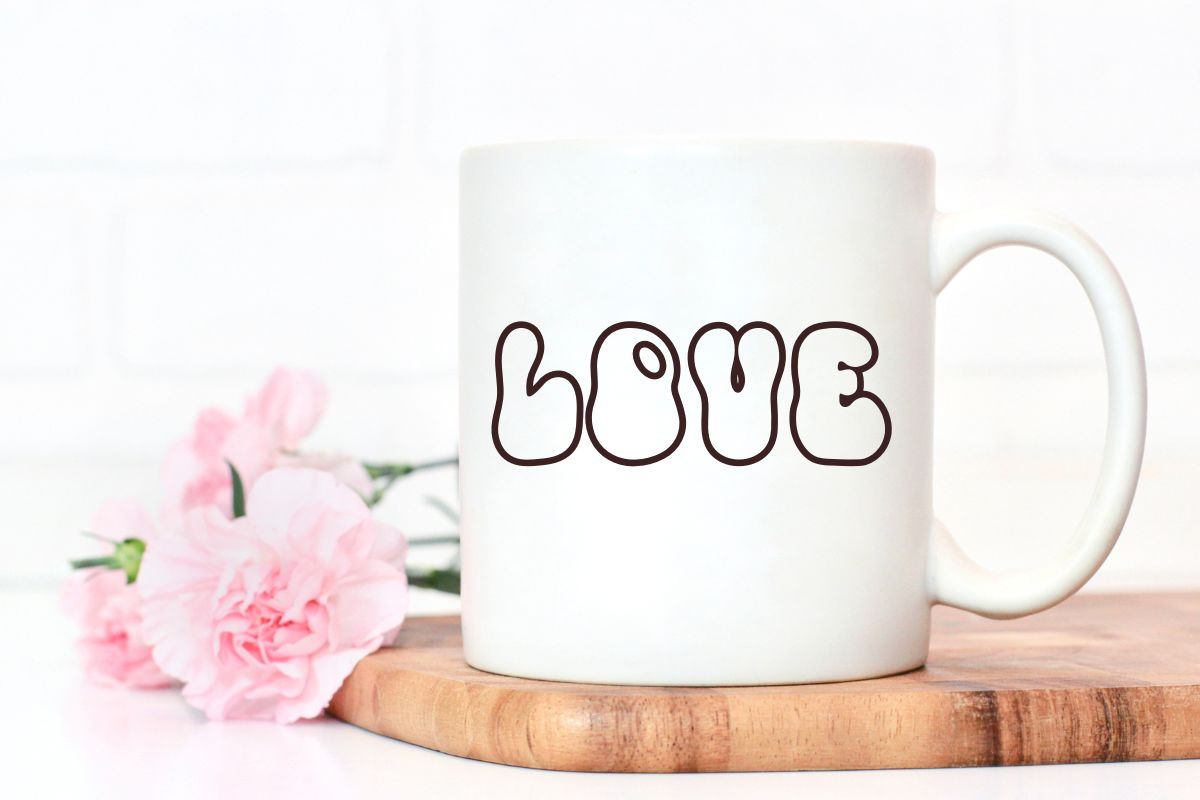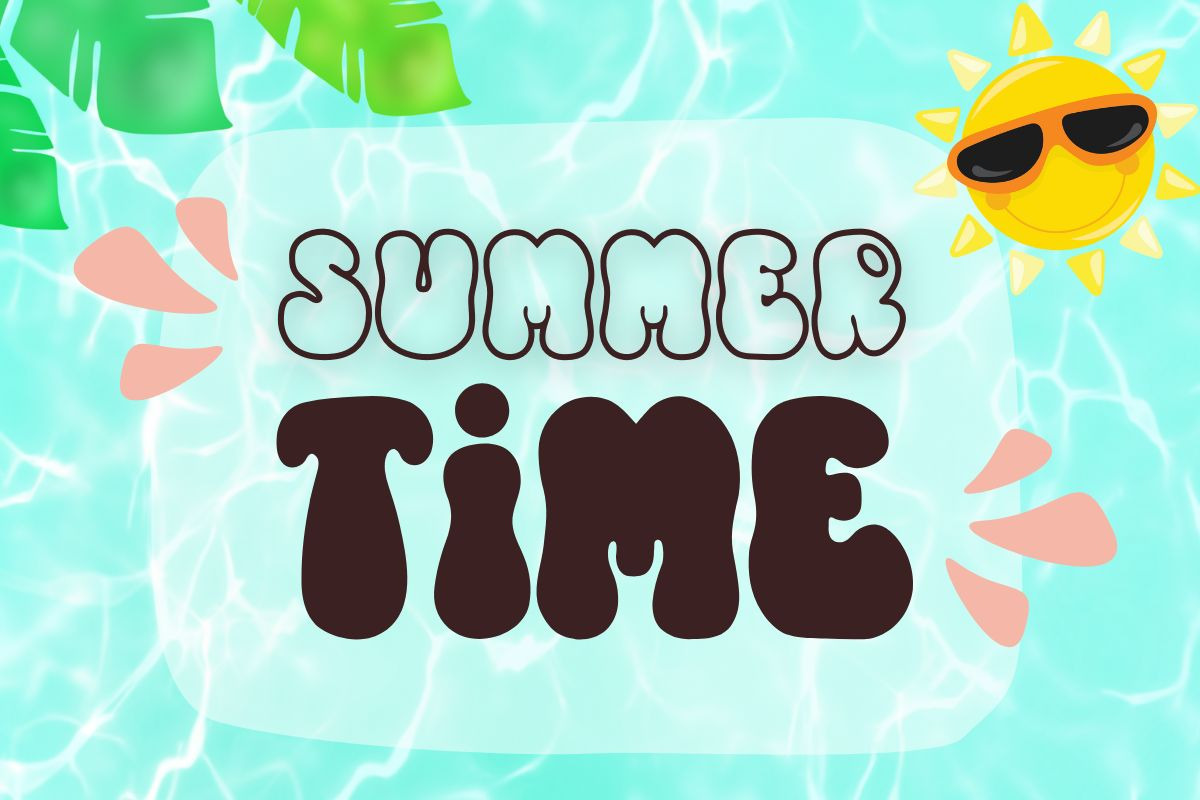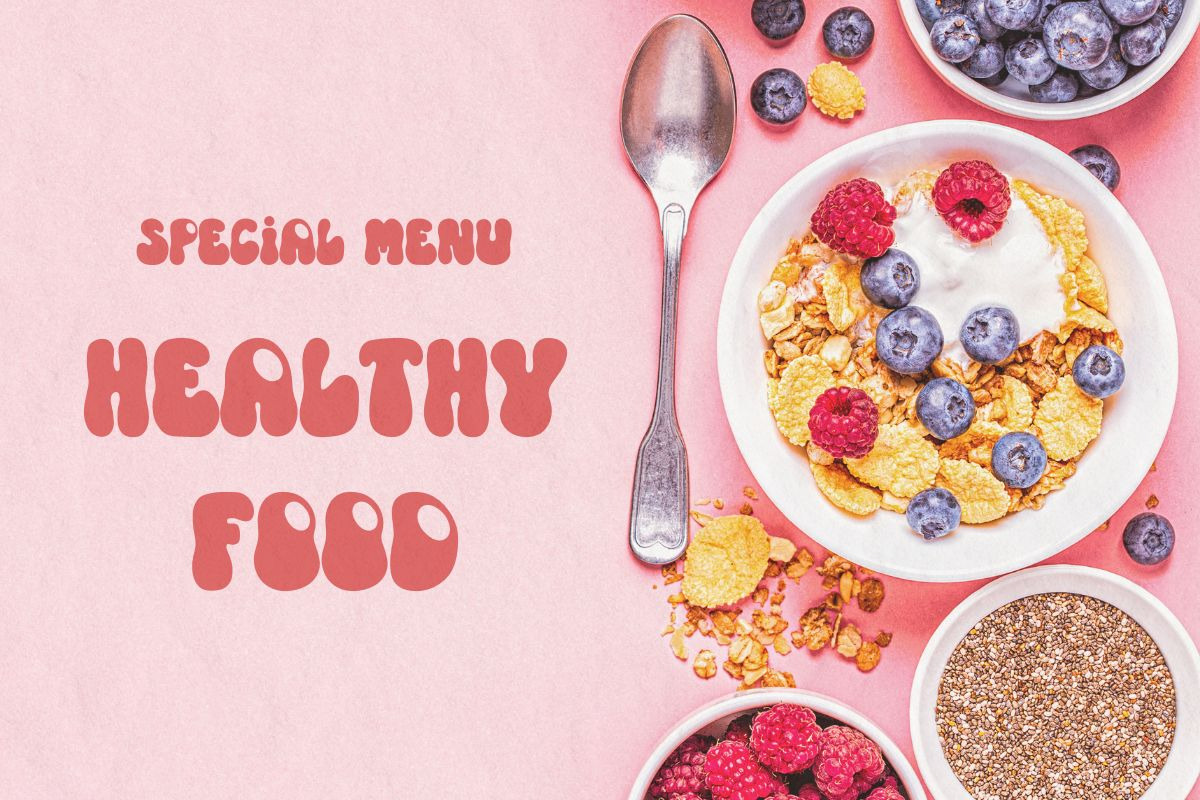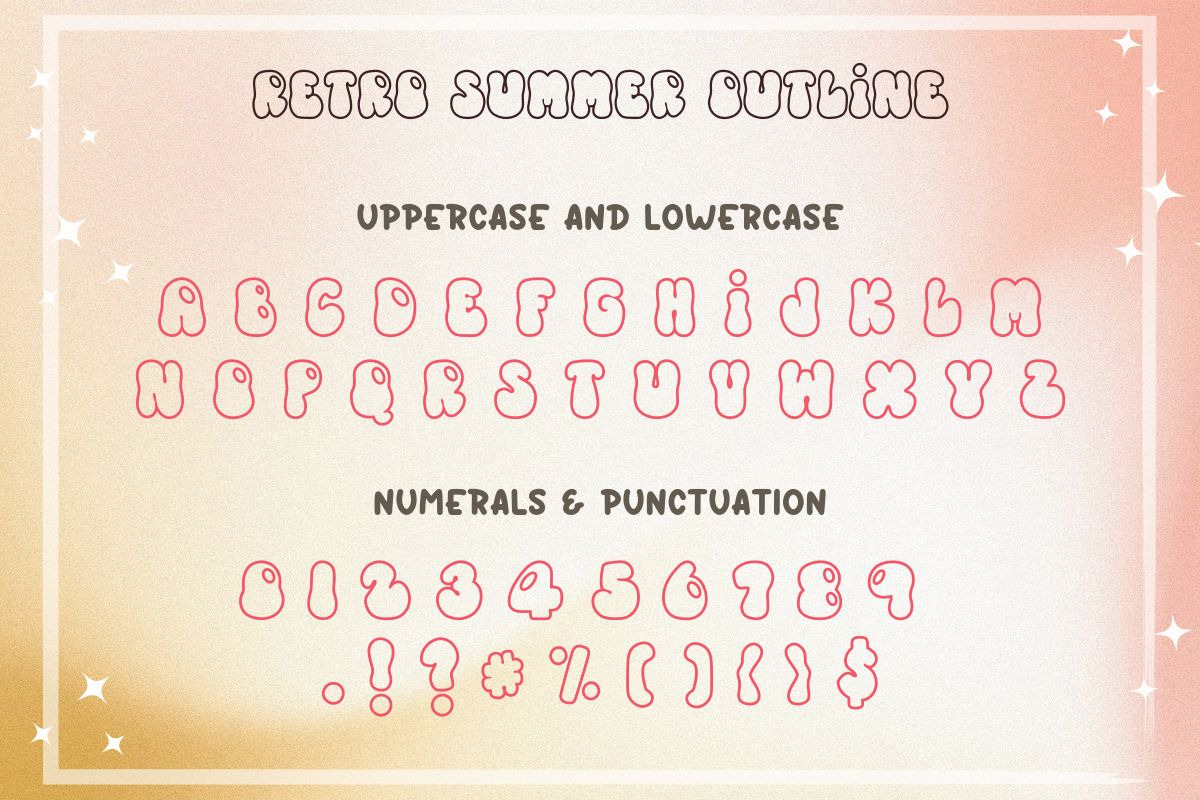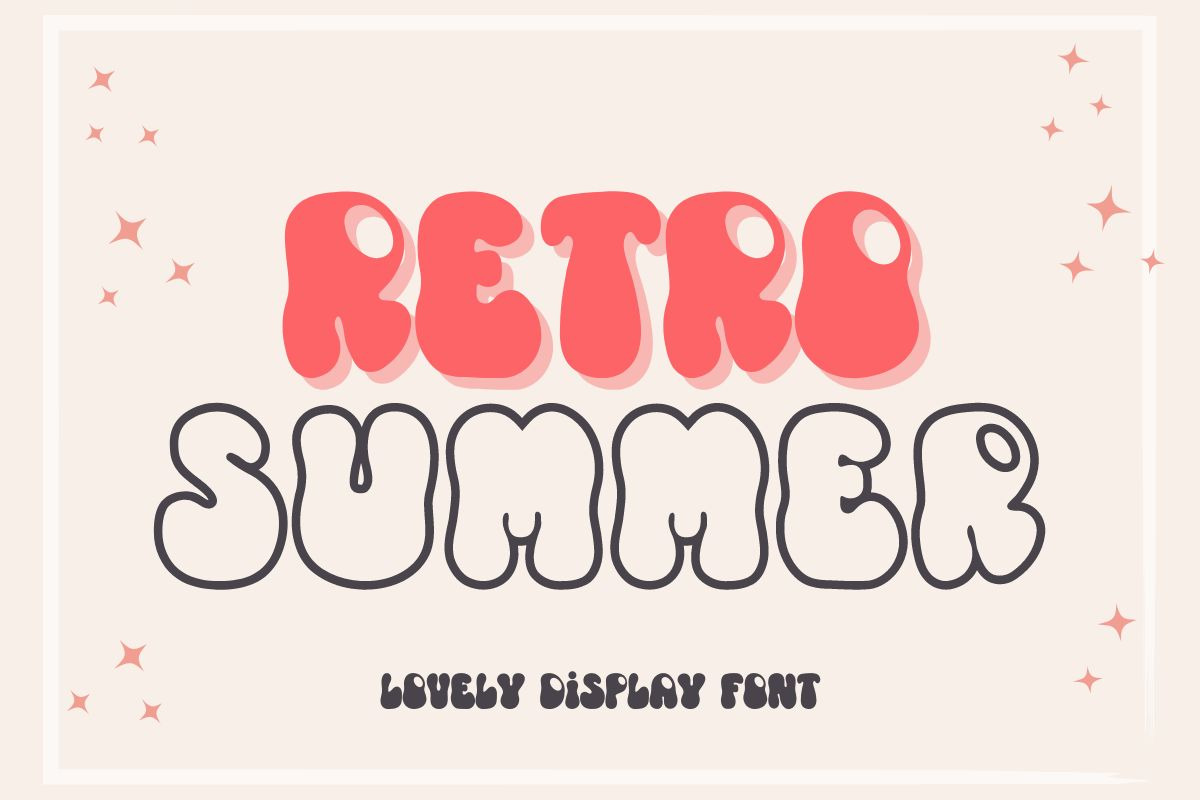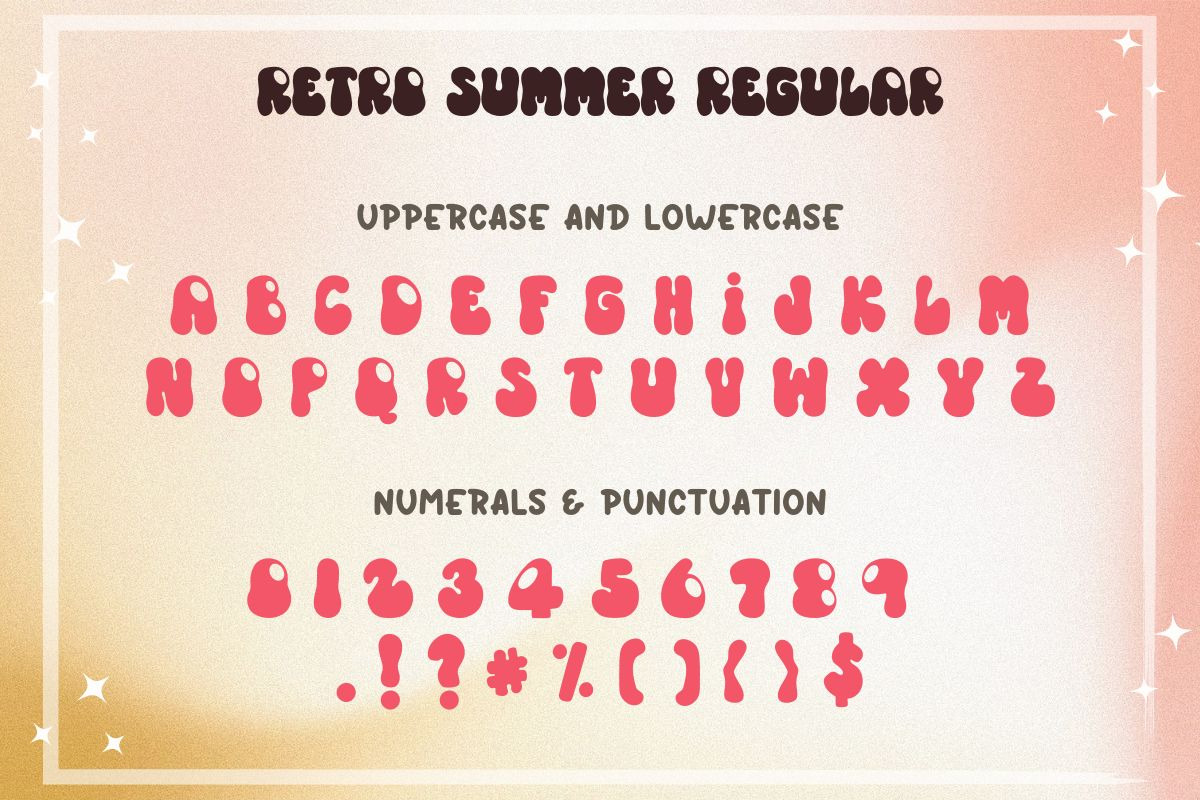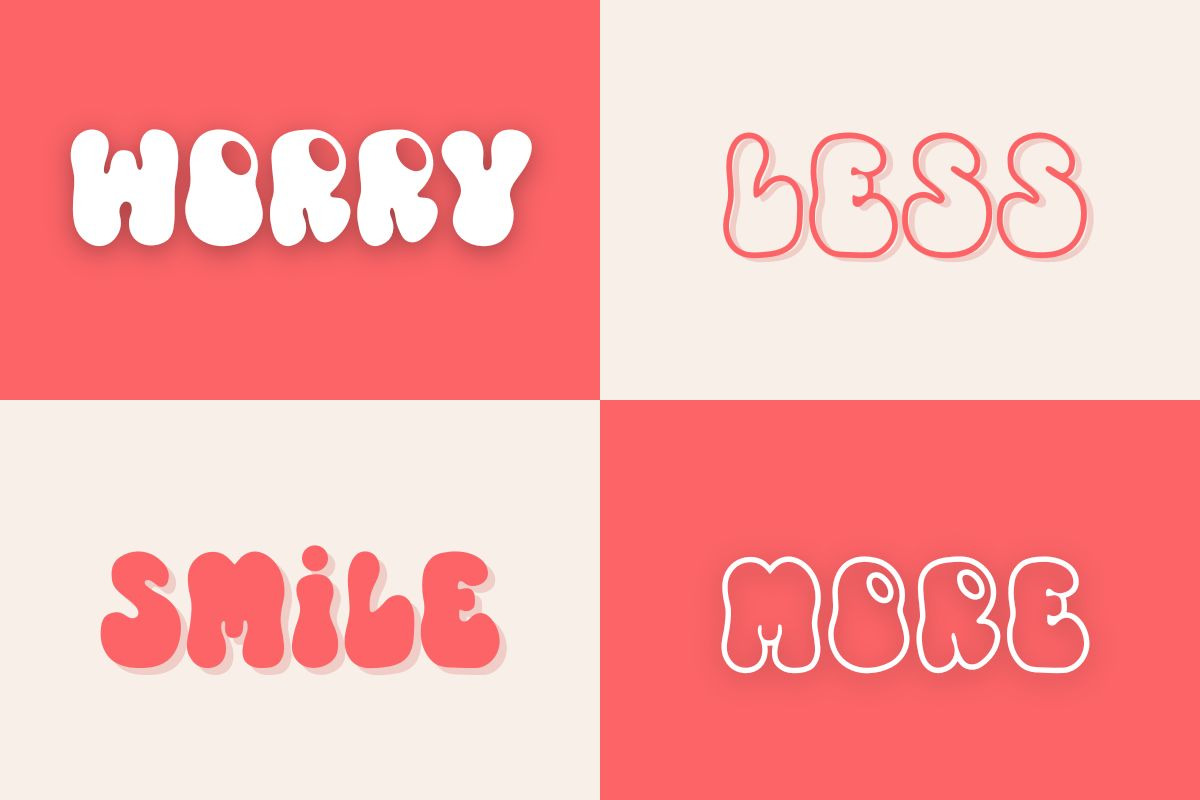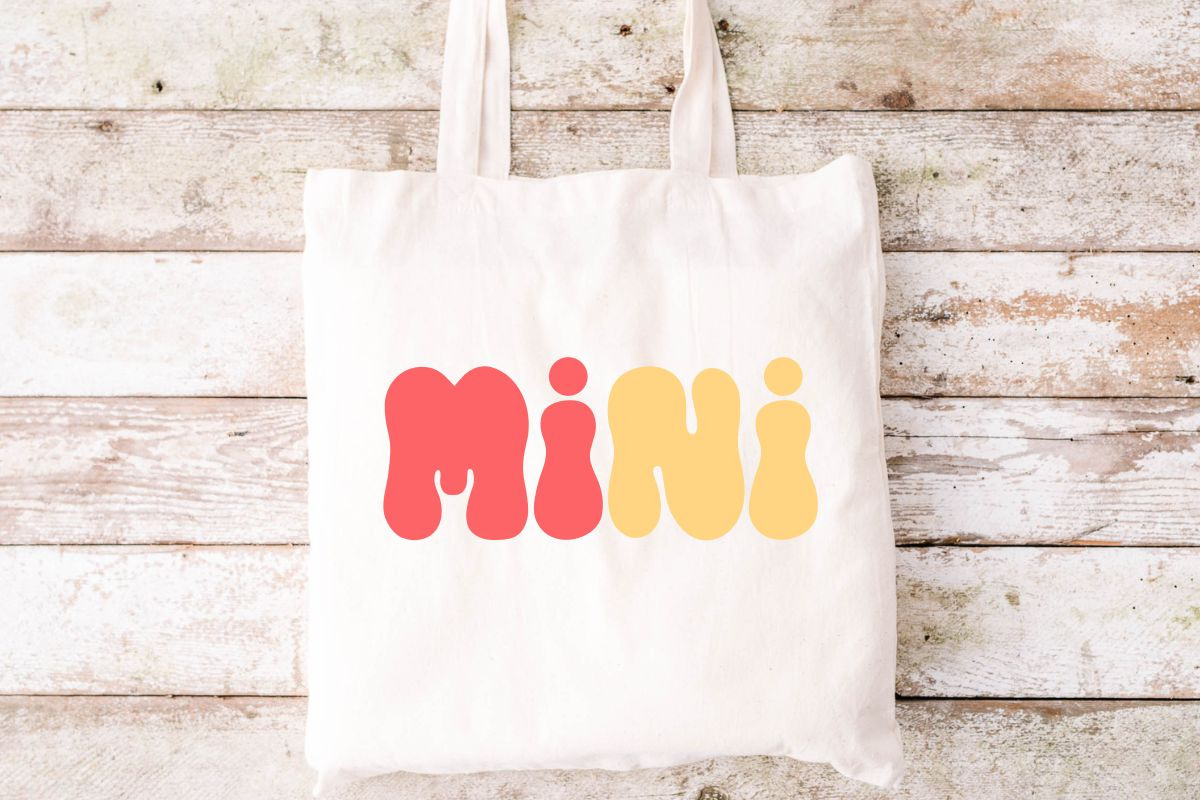
Retro Summer | Groovy Font
Retro Summer is a Groovy Font. You enjoy and have fun with your designs. Perfect for creating a wide variety of new designs to match products such as banners, content, mugs, cards, shirts, stationery, social media posts, and more!